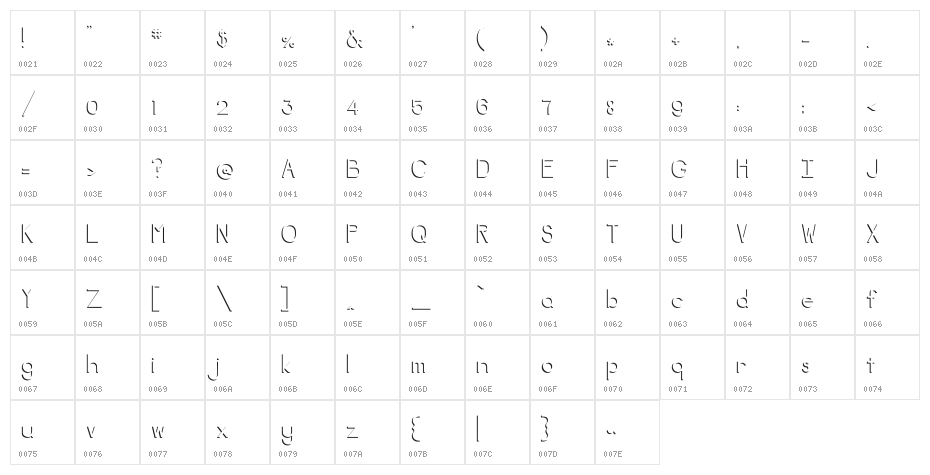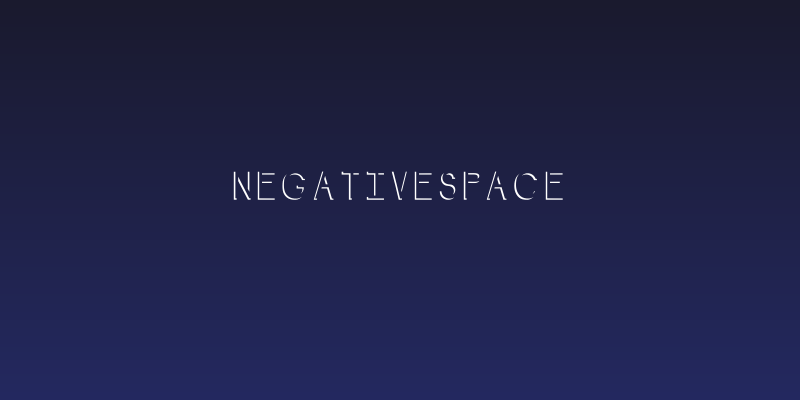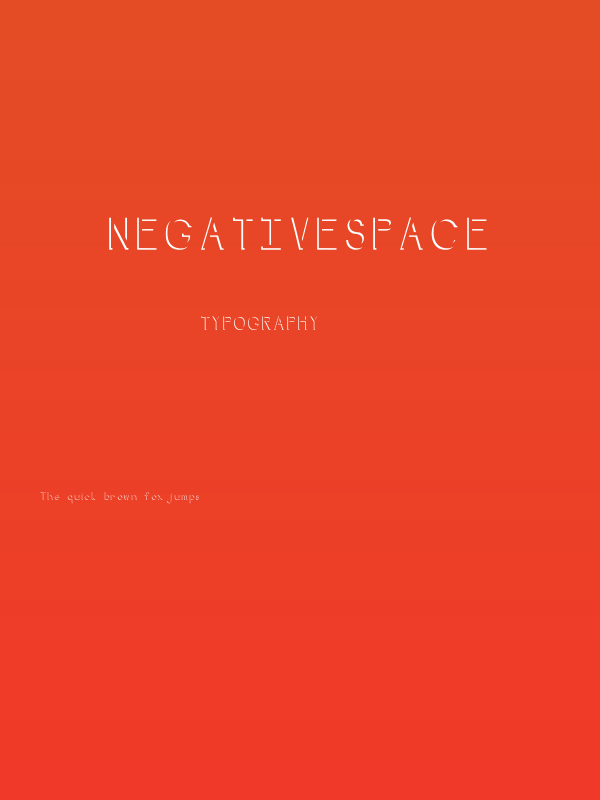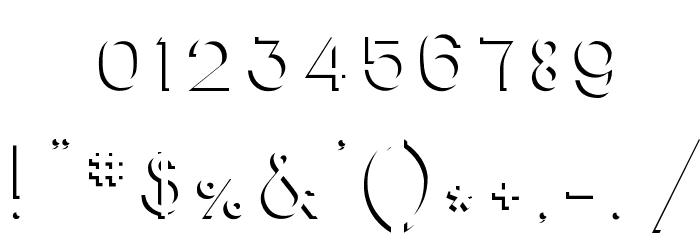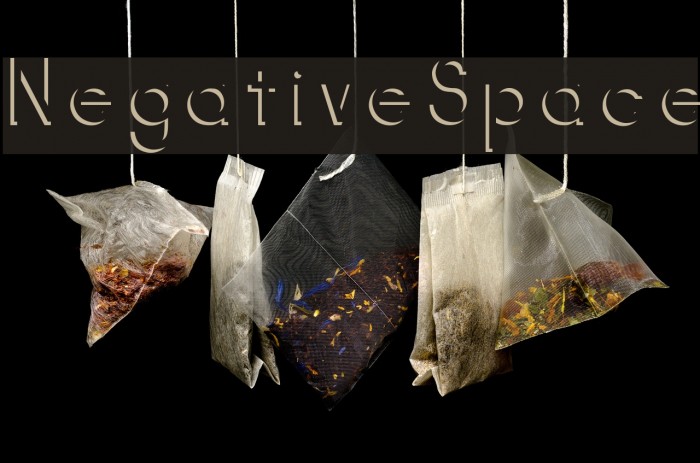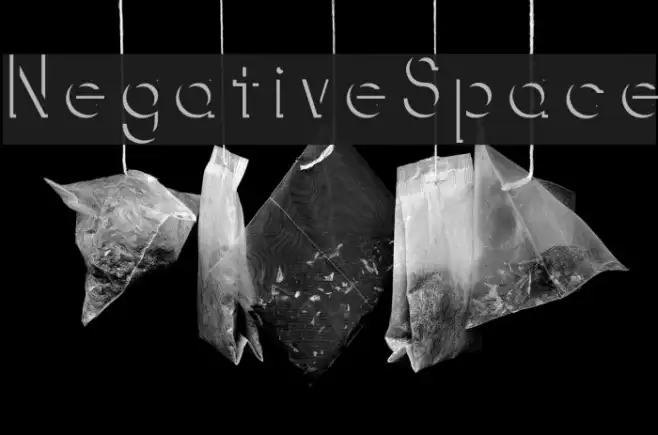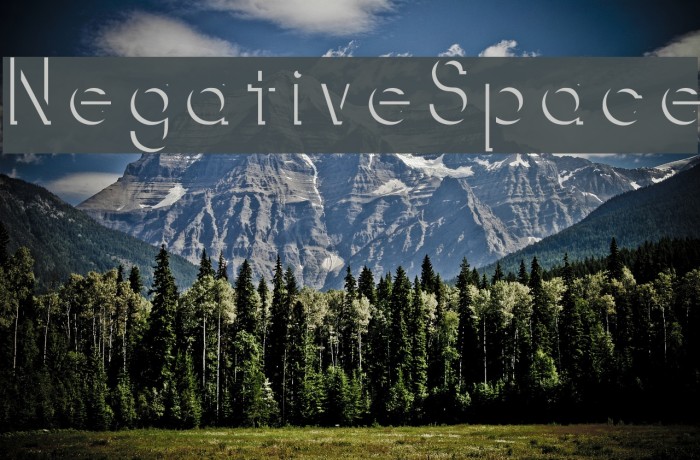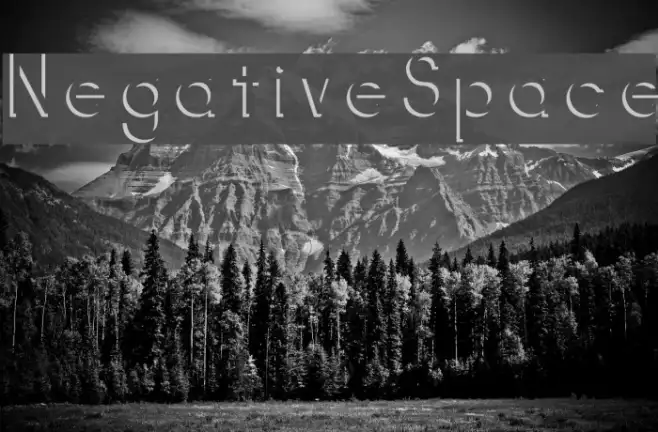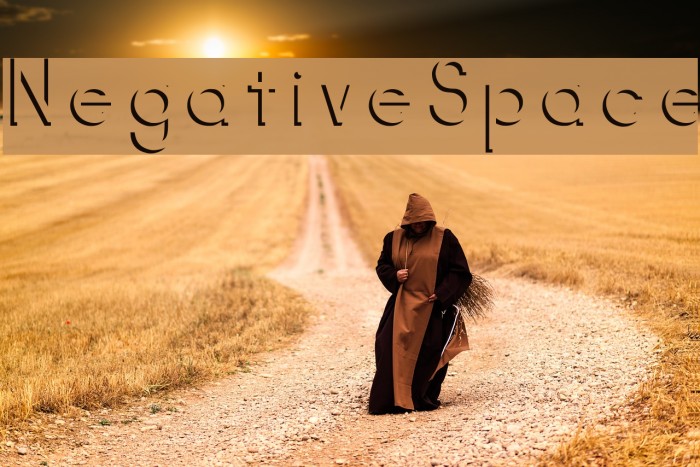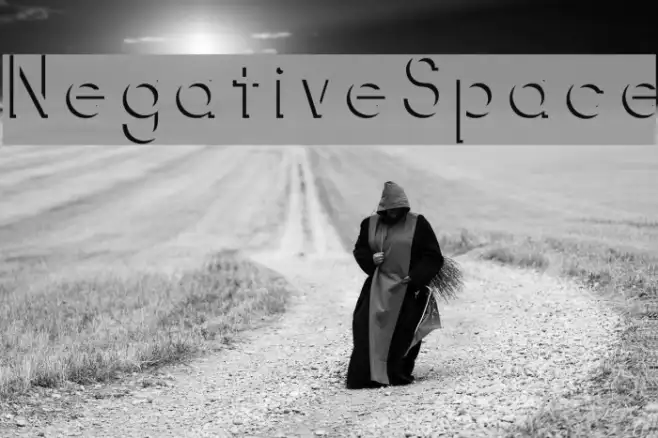
NegativeSpace Font
NegativeSpace Description
This font features a unique and modern design that utilizes negative space to create its characters. The letters are constructed with clean, geometric lines and strategic cutouts, giving them a distinct and airy appearance. The uppercase and lowercase letters maintain a consistent style, with a focus on minimalism and clarity. The numerals and special characters are crafted with the same attention to detail, ensuring a cohesive look across all elements. This font's innovative use of space makes it stand out, offering a fresh take on traditional typography.
| Use Case | Logos, Headlines, Branding |
| Proposed Projects | Ideal for branding, advertising, and editorial design where a modern and innovative look is desired. |